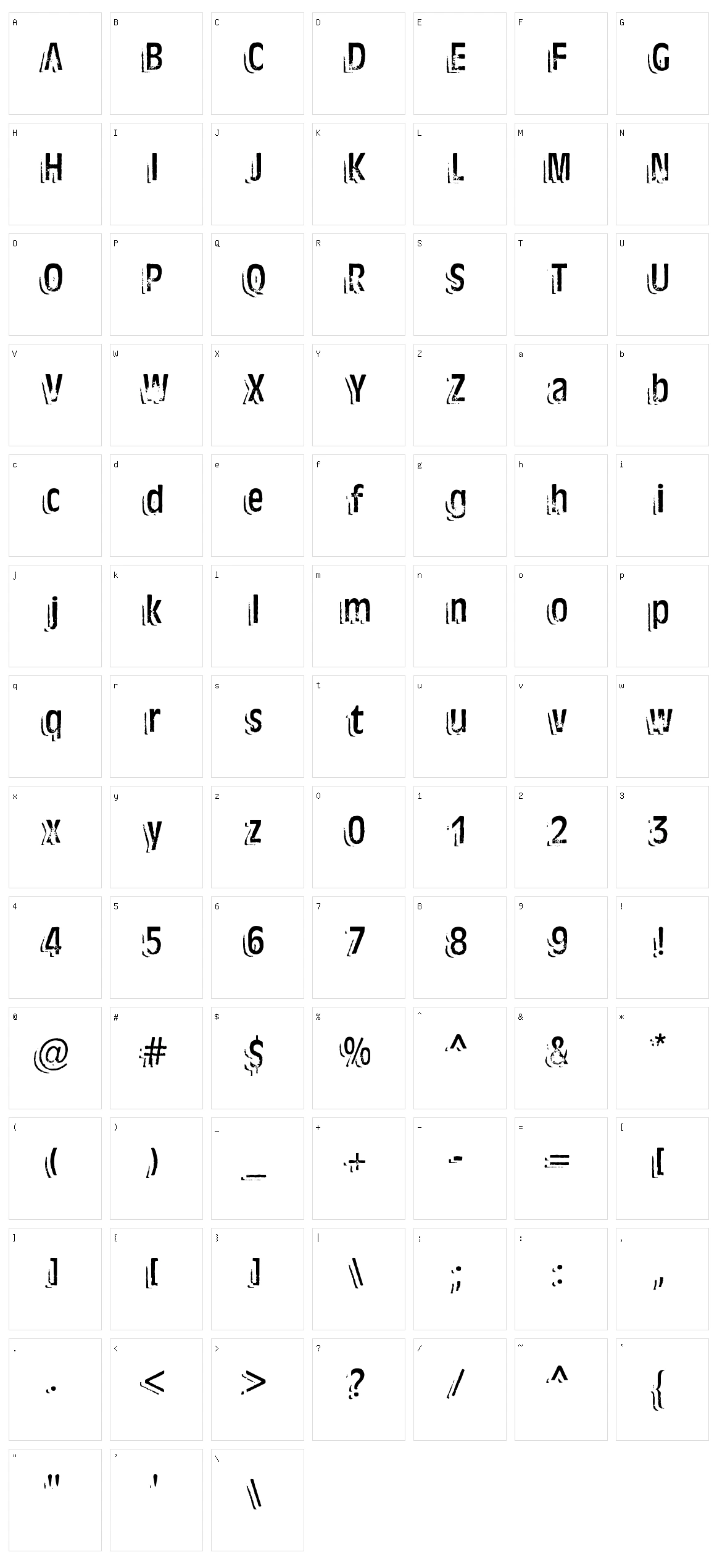
TEN TON BALLYHOO (AND ALTERNATES)
Sometimes, naming a new font is like naming a rock band. Thats about all I want to reveal about the title of Ten Ton Ballyhoo. Since I was a little late with the font this month I put a little bonus elbow-grease into it This is a full keyboard stressed poster font with my usual extras, plus a bonus Alternates font which replaces the letters (both upper- and lowercase) and numerals with differently-stressed versions of the same glyphs, which Ive shown off in the sample image (regardless of what the title may refer to, it has the handy bonus of featuring multiple letters that benefit from the fonts own design).
The Alternates font repeats the other glyphs (punctuation and so on) for convenience, allowing either font to act as a standalone.